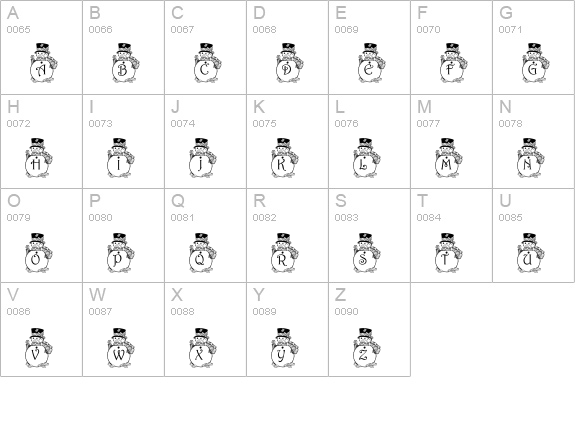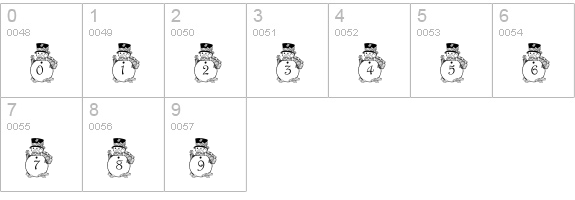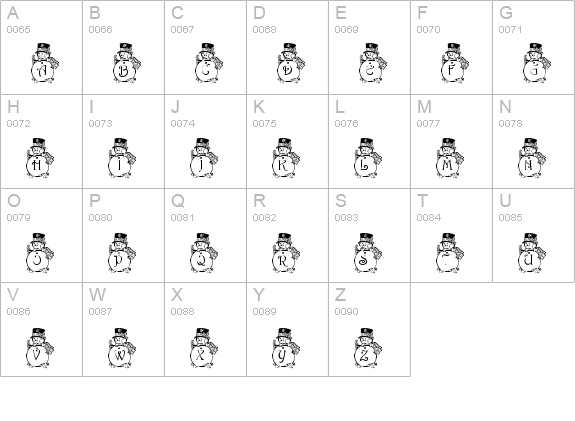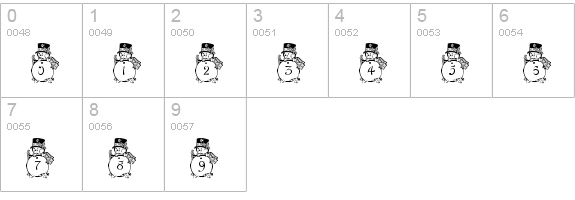
pf_snowman3 Font Details
Introducing pf_snowman3, a charming and whimsical font that will bring a touch of winter wonderland to your designs. This delightful typeface captures the essence of a snowman, with its rounded and friendly letterforms that exude warmth and cheer. Perfect for adding a playful and festive touch to your holiday cards, invitations, posters, and more. But what truly sets pf_snowman3 apart is its availability as a free download. Yes, you read that right - this enchanting font is freely available to download at FontsMarket.com. Now you can bring the magic of the snowman to your projects without breaking the bank. Whether you're designing for a winter-themed event, creating a holiday brochure, or simply looking to add a touch of whimsy to your designs, pf_snowman3 is the perfect choice. With its easy-to-read characters and unique snowman-inspired details, this font is sure to delight both young and old alike. So why wait? Head over to FontsMarket.com now and grab your free download of pf_snowman3. Let this delightful font bring a smile to your face and a sprinkle of winter magic to your designs.